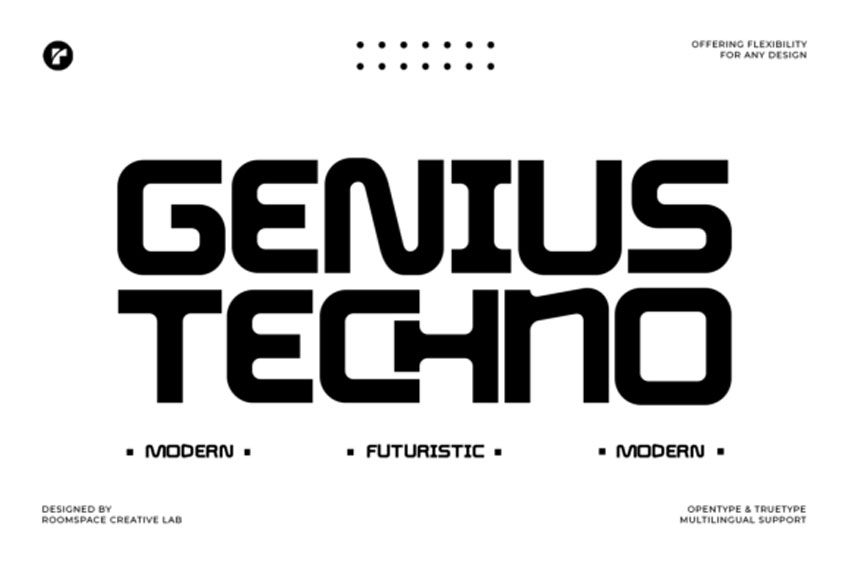
Genius Techno Font
Genius Techno Font is a cutting-edge modern futuristic typeface that embodies the sleek aesthetics of technology and innovation.
Designed with bold geometric structures, rounded edges, and a tech-inspired look, this font is perfect for brands, UI/UX design, gaming, sci-fi projects, and futuristic branding.